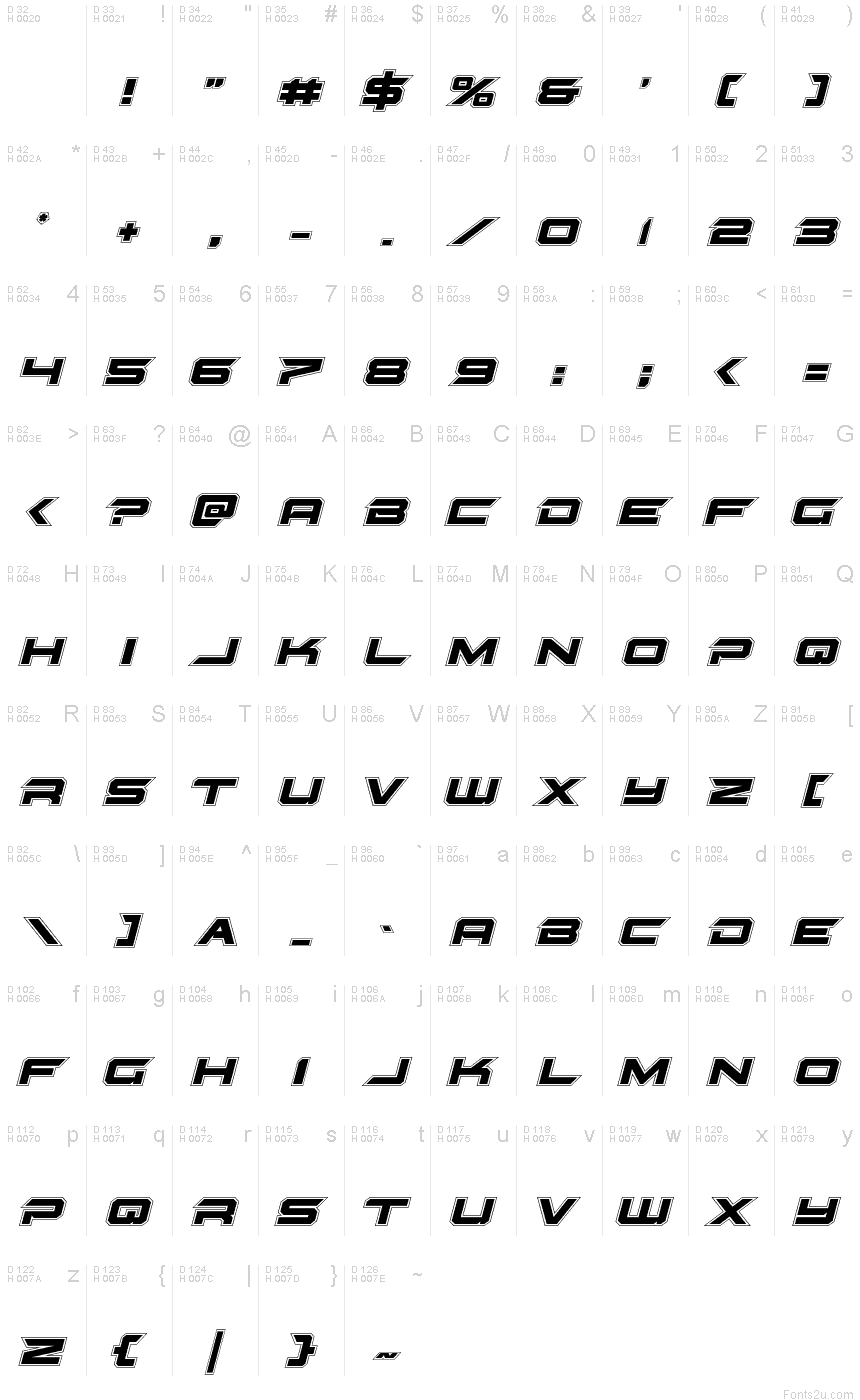
Gypsy Killer Academy Italic is a free futuristic display font from Iconian Fonts, carrying a 2013 design credit. Its unusually broad, forward-leaning capitals combine blunt horizontal strokes, sharply clipped corners, deep diagonal slashes, and layered inline borders that recall racing graphics and machine-cut lettering.
Motorsport branding is its strongest role, especially for team logos, event posters, and apparel, where the low, wide silhouette immediately suggests speed and competition. It also fits arcade racing games and action album covers, with extended proportions and angular cuts tying both uses to high-tech machinery.
Gypsy Killer Academy Italic